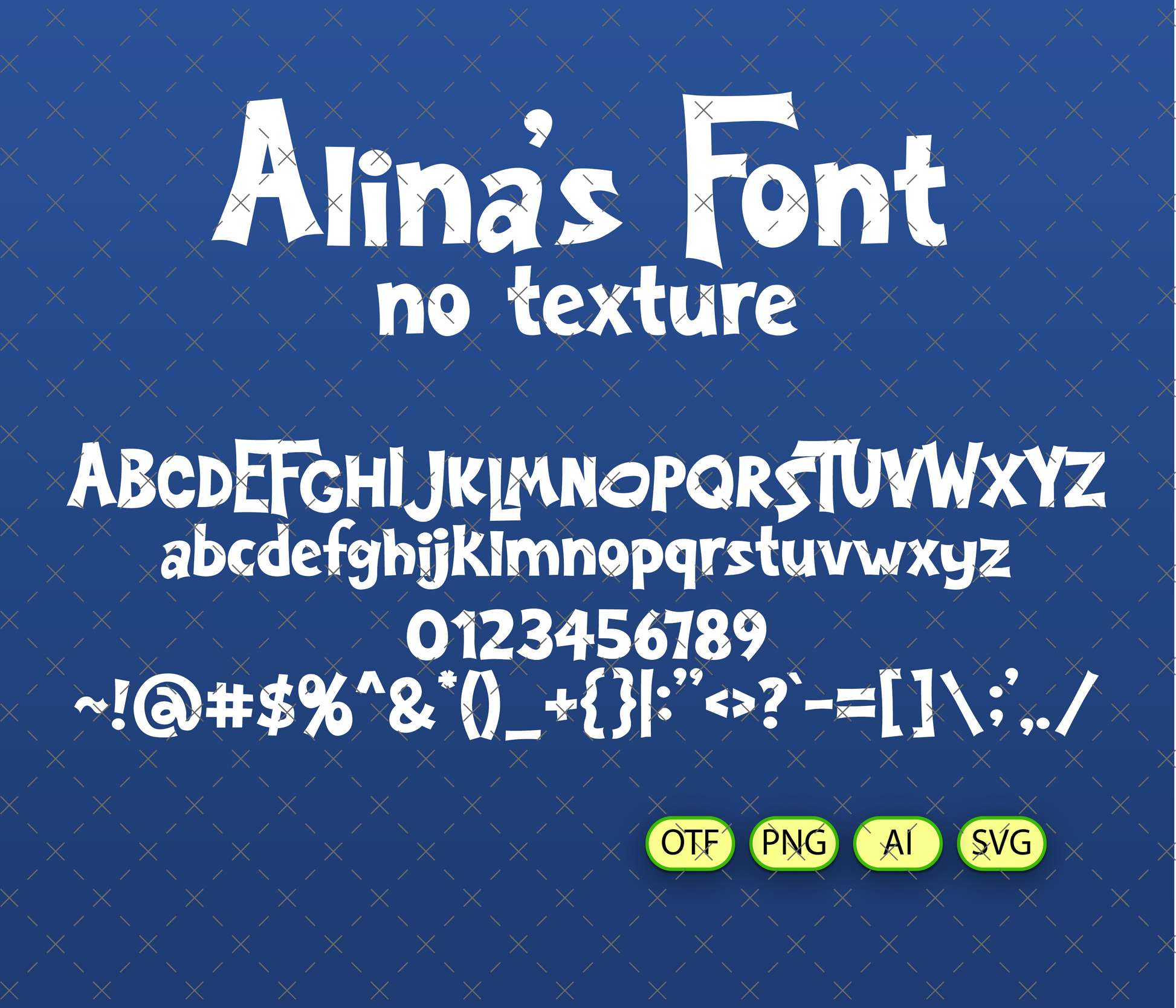
Winter Wonder Character Font
Step into the enchanting realm of seasonal magic with our Winter Wonder Character font, capturing the essence of snowy joy and holiday spirit. Perfect for festive designers, winter celebration enthusiasts, event coordinators, and creative professionals, this font brings the cheerful, crisp spirit of beloved cold-weather tales to your projects. Create memorable holiday materials, merchandise, or digital content with the playful energy of classic winter personalities.
Our Winter Wonder Character font features clean, bold letterforms and smooth characters reflecting the world of frosty enchantment. Ideal for:
- Event Promotions: Create engaging invitations, promotional materials, and displays for holiday functions, winter markets, and seasonal festivities that capture the spirit of snowy celebration
- Merchandise Design: Perfect for clothing designs, art prints, and keepsake items that showcase the charming aesthetic of winter lore and seasonal magic
- Digital Media: Enhance websites, blogs, and social channels with playful headers and graphics that express the joy of wintry adventures
- Holiday Content: Add authentic charm to card designs, seasonal graphics, and creative works inspired by timeless frozen friends
- Personal Projects: Bring festive energy to scrapbooks, craft projects, and home decorations inspired by the world of snowy companions
Our font pays tribute to the iconic world of winter celebration and seasonal charm, empowering your designs with its joyful and nostalgic spirit. Whether crafting promotional materials, designing merchandise, or adding a holiday touch to personal projects, this font communicates the heartwarming essence of winter merriment. Ready to inject seasonal delight into your creations? This font is your key to exciting, impactful design.